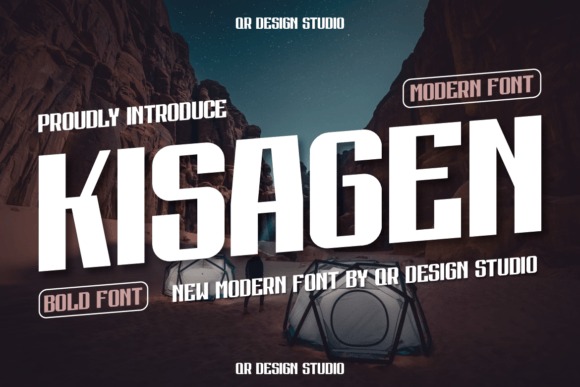
Embark on a typographic journey with Kisagen, a font that embodies the essence of power and athleticism. Crafted with meticulous attention to detail, Kisagen's bold and authentic display font is a game-changer for your branding projects. Whether it's a logo, sports apparel, or marketing campaign, Kisagen is the font that elevates your designs to the next level.
Feel the rush of energy as Kisagen's robust strokes and sharp angles command attention. This sans serif font exudes a sense of strength and agility, making it the perfect choice for conveying the dynamism of sports and adventure. Unleash your creativity and let Kisagen propel your designs to new heights.
With Kisagen as your typographic ally, you'll effortlessly create designs that resonate with your audience. Its versatility extends beyond sports, making it a suitable font for branding projects across industries. Kisagen's distinct personality adds a touch of boldness and authenticity to logos, posters, flyers, and social media graphics.